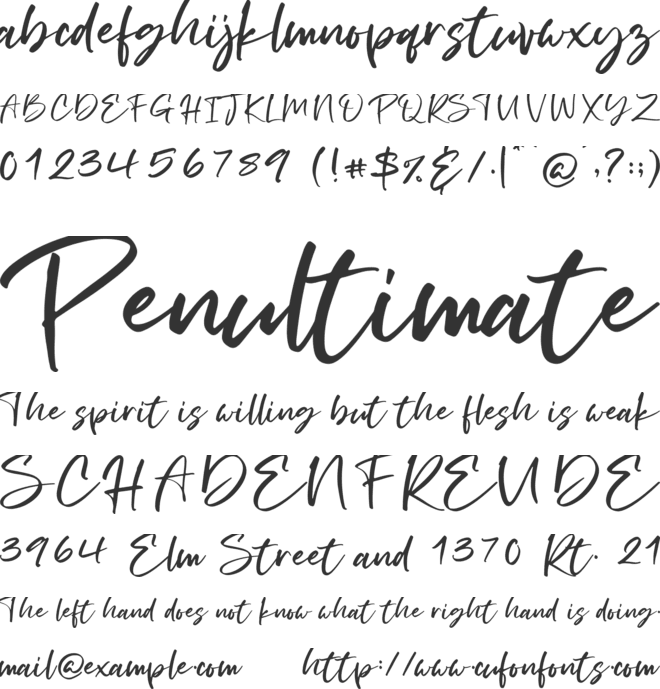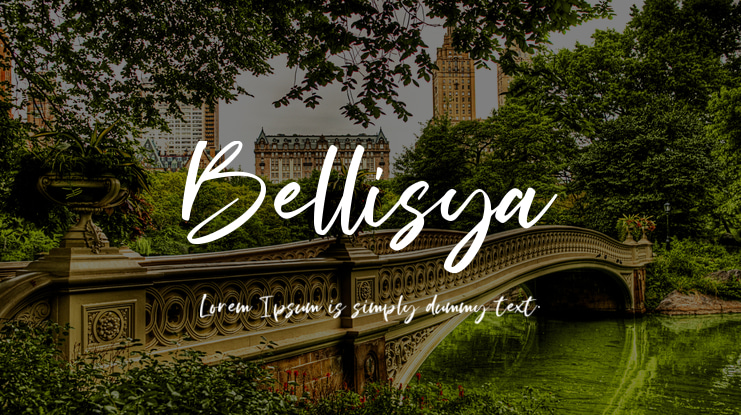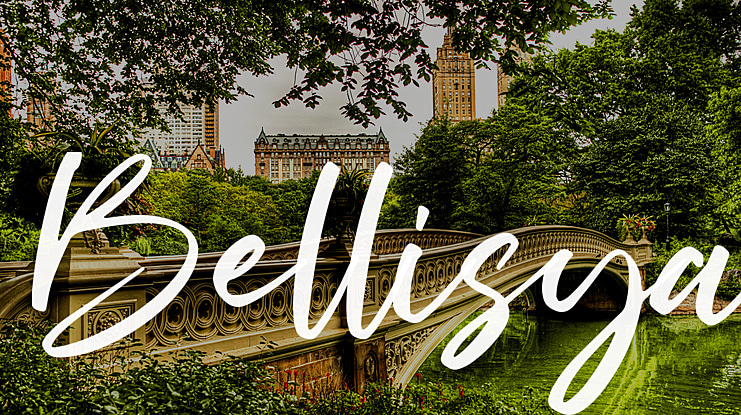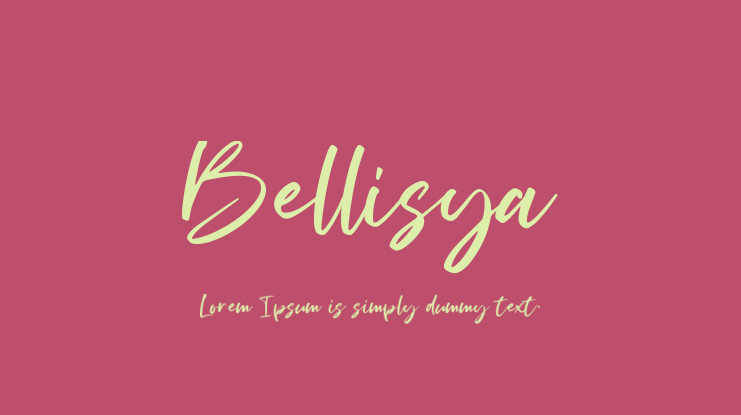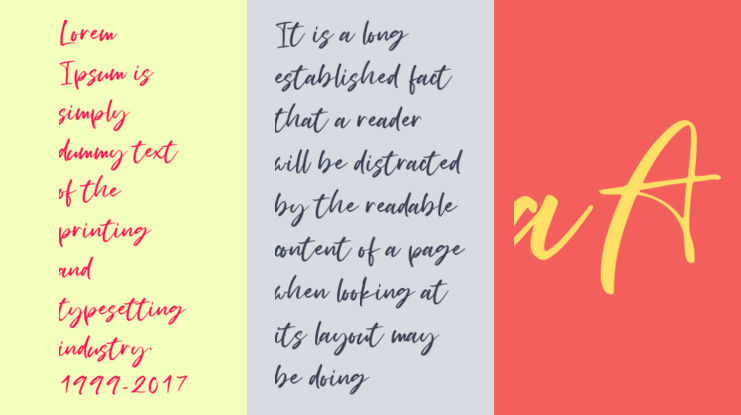
Bellisya Font
Bellisya - Handwritten Font. Made from natural pen.
it will make your design project more beautiful.
The font is suitable for any design like branding, fashion,
print template, quotes, wedding and etc.